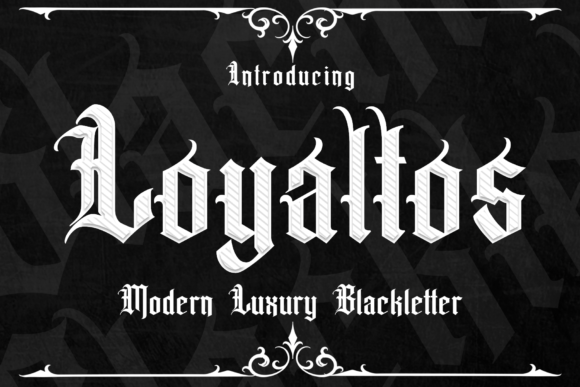
Loyaltos Font: A Victorian Blackletter for Modern Creatives
There's a certain weight and history to blackletter typography that instantly commands attention. It speaks of tradition, craftsmanship, and a bold, unapologetic presence. For designers and creators seeking that authentic vintage character without resorting to clichés, discovering a typeface like Loyaltos Font can be a turning point. This isn't just another display font; it's a carefully crafted premium font rooted in Victorian blackletter tradition, yet versatile enough for contemporary projects. Its bold, creative style offers a unique blend of old-world charm and modern utility, making it a valuable design asset for anyone looking to make a statement.
Understanding the Visual Character of Loyaltos
Loyaltos is an authentic Victorian blackletter, but what does that mean in practice? Think of the intricate, angular letterforms found in old manuscripts, signage, and diplomas. This typeface captures that essence with sharp, defined strokes and a strong vertical emphasis. It has a vintage feel that's both regal and slightly edgy, avoiding the overly ornate look that can sometimes make blackletters difficult to read. The overall appeal is one of distinction and heritage. It feels established, trustworthy, and inherently creative—qualities that resonate across many audiences.
Its personality is unapologetic. When you use Loyaltos, you're not whispering; you're making a clear declaration. This makes it particularly effective for projects where first impressions and brand recognition are critical. The font carries a sense of authenticity that modern, minimalist typefaces often lack, providing an immediate depth and narrative to any design it graces.
Where Loyaltos Font Truly Shines
The strength of a creative font like Loyaltos lies in its application. It's not a workhorse body text font, but a specialist tool for specific, high-impact scenarios. Here’s where it tends to deliver the most value:
The key is to use it strategically. It pairs exceptionally well with cleaner, more neutral fonts. A classic serif font or a simple sans serif font can balance its intensity, creating a sophisticated font pairing that maintains readability for longer text while letting Loyaltos own the headlines.
Making an Impact: Readability, Hierarchy, and Perception
Using a bold blackletter font responsibly is part of the creative challenge. Its primary role is to establish a strong visual hierarchy. By setting your main headline in Loyaltos, you instantly create a focal point that guides the viewer's eye. This enhances the overall structure of your layout, whether it's a poster, a webpage, or a business card.
Regarding readability, context is everything. At large sizes, such as in logos or major headings, its characters are distinct and legible. However, setting a full paragraph in Loyaltos would be impractical and strain the reader's eyes. Its strength is in display use. When used correctly, it actually improves the reading experience by clearly demarcating sections and adding visual interest that keeps the audience engaged.
From a brand perception standpoint, Loyaltos influences how an audience feels about a project. It can evoke feelings of nostalgia, reliability, craftsmanship, and even a touch of rebellion or exclusivity. For a small business or entrepreneur, this can be a powerful tool for differentiation, helping to build brand identity and recognition in a crowded market. It says you value tradition and aren't afraid to stand out.
A Practical Guide to Choosing and Using Loyaltos
Before integrating any new commercial font into your toolkit, a thoughtful evaluation is necessary. Here’s a practical checklist for working with Loyaltos:
1. Evaluate Project Fit: Does the project's tone align with a vintage, authoritative, or artisanal aesthetic? If you're designing for a tech startup or a medical practice, it's likely not the right choice. For a brewery, a record label, or a vintage shop, it's perfect.
2. Test Font Pairings: Don't use it in isolation. Experiment by pairing it with a script font for a touch of elegance, or a geometric sans serif font for a striking contrast. The goal is harmony, not competition.
3. Review Included Styles: Check what's included in the font package. Does it have alternate characters, ligatures, or swashes? These features can add valuable customization and uniqueness to your designs.
4. Conduct a Readability Test: Always view your design at the intended size and medium. How does it look on a mobile screen versus a printed poster? Ensure the specific words you're using are clear and recognizable.
Think of Loyaltos as a specialist tool in your modern typography kit. You wouldn't use a sledgehammer for every task, but for driving a stake, it's unmatched. Used with intention, this creative font can elevate a project from ordinary to memorable, infusing it with a bold, authentic character that resonates deeply with your audience. Its vintage charm is not a limitation but a focused strength, ready to be deployed in your next creative endeavor.